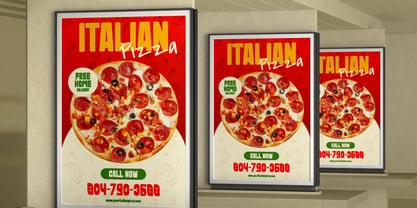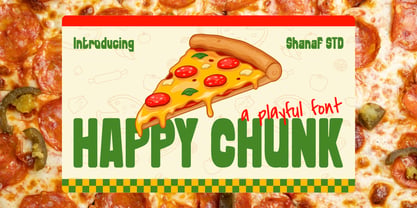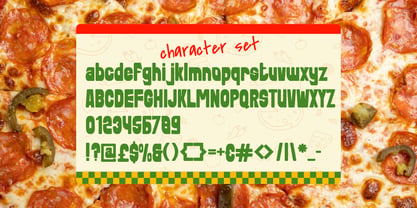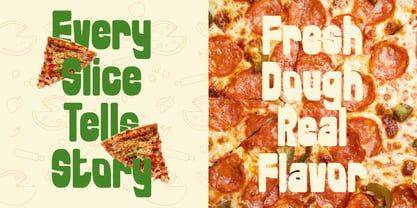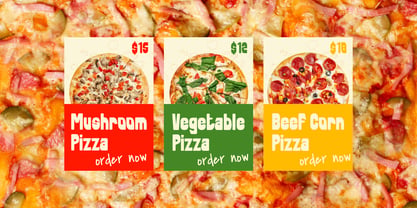
Happy Chunk
by Putracetol
The Happy Chunk Font Family was designed by Putra Novembria Candra Kusuma and published by Putracetol. Happy Chunk contains 1 styles. More about this family
Happy Chunk Playful Food Font is a bold and cheerful display typeface designed to capture the joy and warmth of food-inspired design. Each letter is thick, rounded, and slightly uneven, giving it a handmade and chunky appearance that feels inviting and full of character. The font’s structure combines tall uppercase forms and compact lowercase shapes, creating a balanced look that’s easy to read while still playful. Its edges are soft but firm, making it ideal for conveying friendliness without losing clarity. The bold weight and solid construction give it strong visibility, perfect for large-scale layouts and attention-grabbing headlines. Happy Chunk Playful Food Font fits beautifully in branding projects, packaging, restaurant menus, posters, and advertising materials. Its friendly aesthetic brings life to any text, especially for food businesses, children’s products, or fun campaigns. The font adds a touch of humor and warmth to creative designs, helping brands appear approachable and genuine. Use it to create a logo that pops, a menu that feels deliciously vibrant, or a poster that radiates joy. With its strong presence and delightful charm, this font turns any design into a bold, flavorful visual statement.
Designers: Putra Novembria Candra Kusuma
Foundry: Putracetol